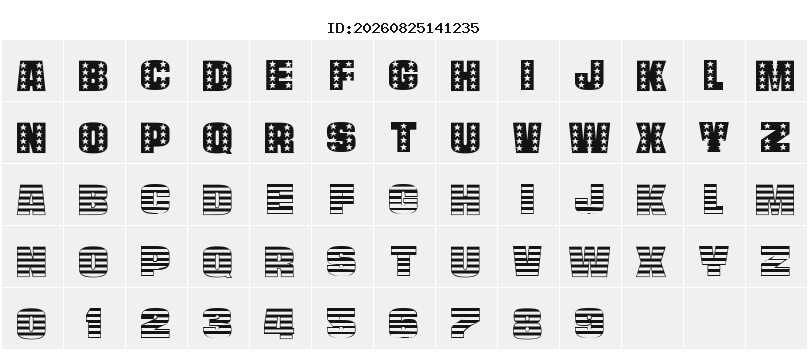
STANLEY Preview
• Font Name: STANLEY
• Full Font Name: STANLEY Regular
About STANLEY.ttf
STANLEY.ttf is a modern, elegant sans-serif font designed for ultimate readability and visual harmony. Perfect for branding, headlines, web design, and print materials.